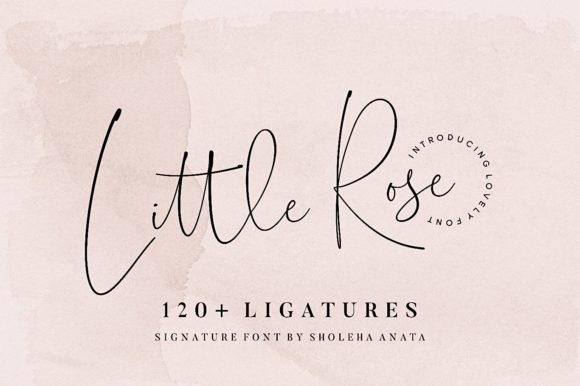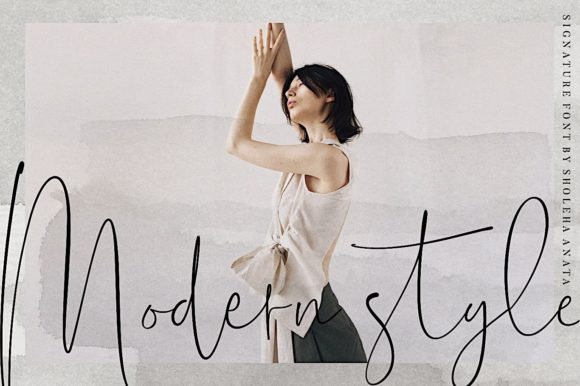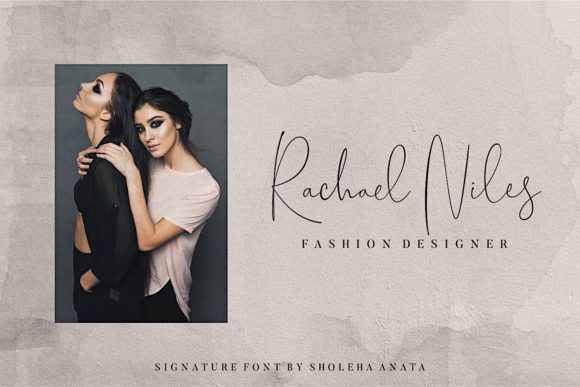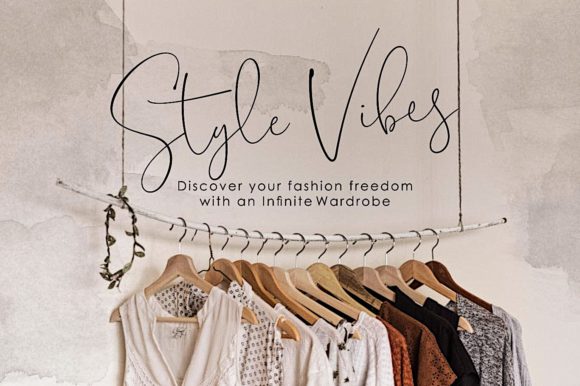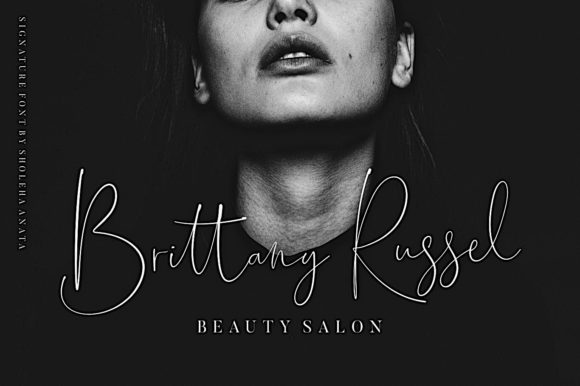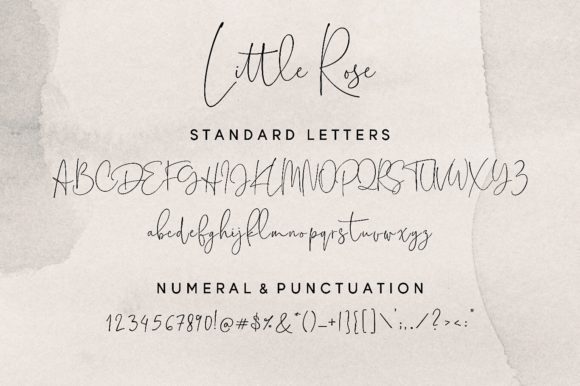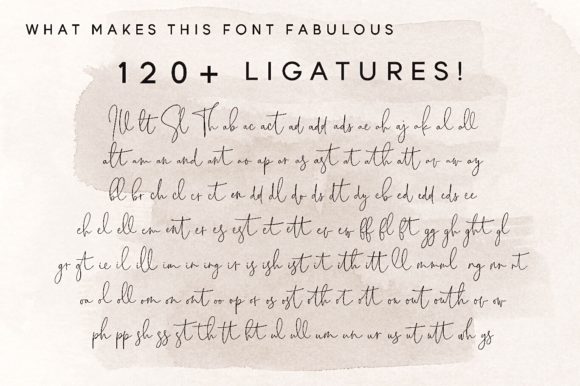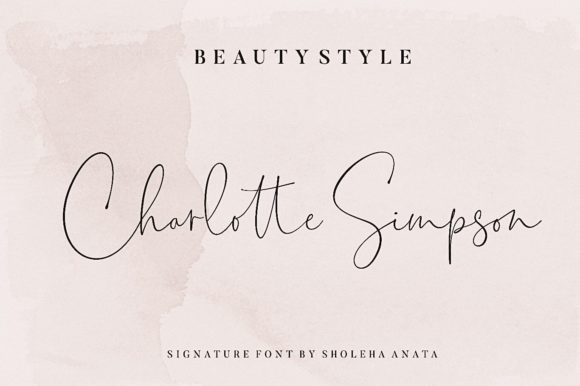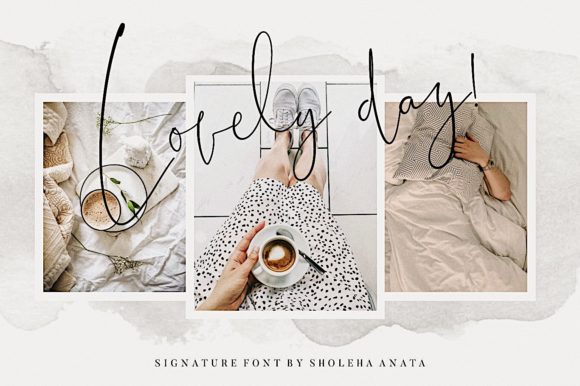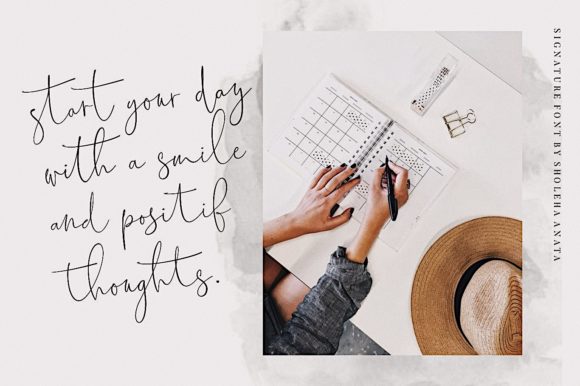
Little Rose Font
The Little Rose is a contemporary and beautiful signature font. It will make perfect designs for gorgeous logos, posters, wedding invitations, blog posts, social media, and more!
The Little Rose includes lots of ligatures which will make your design look high end.